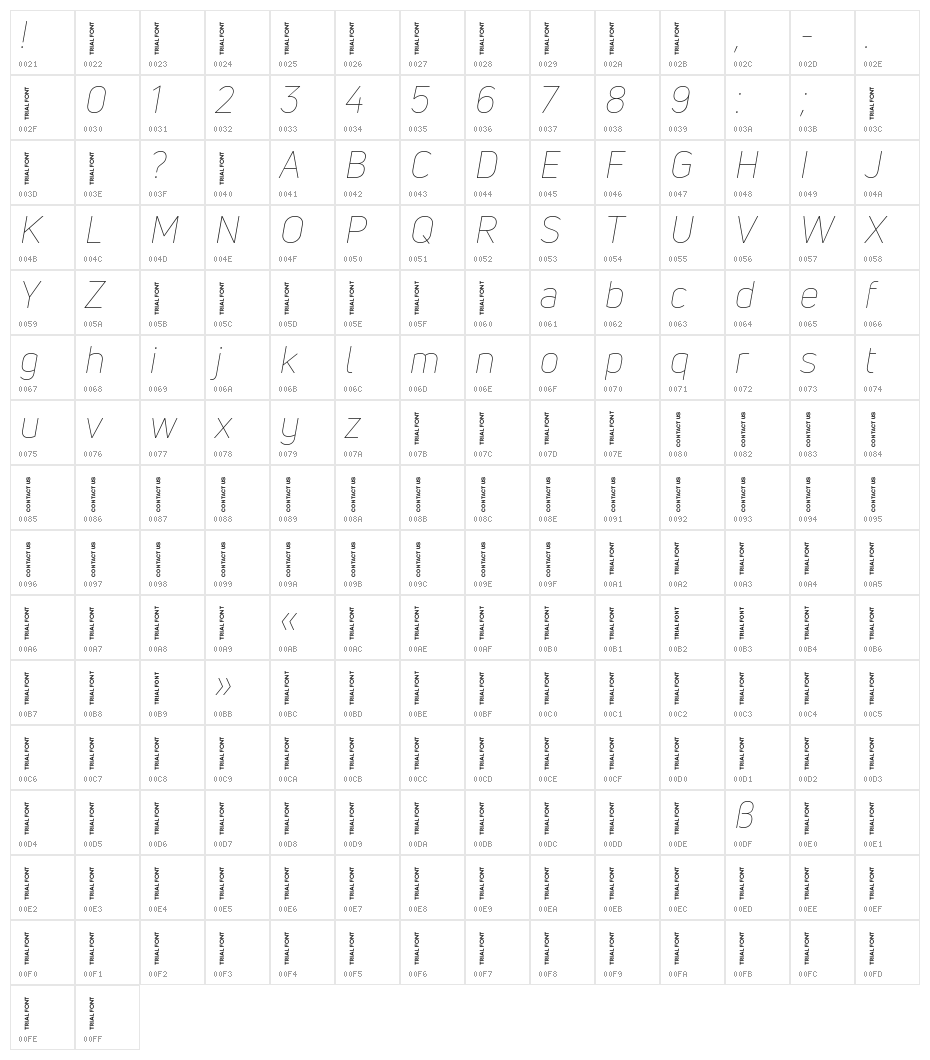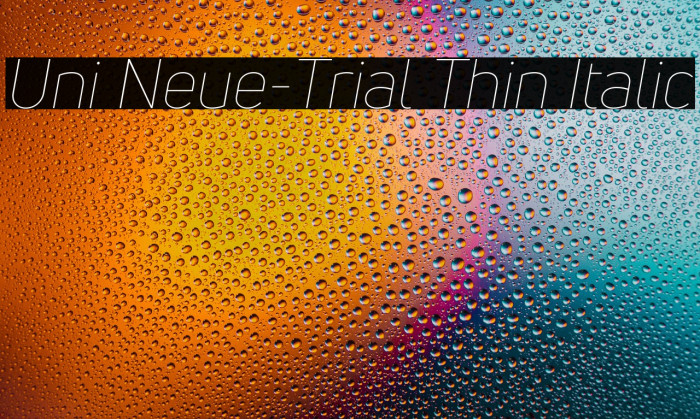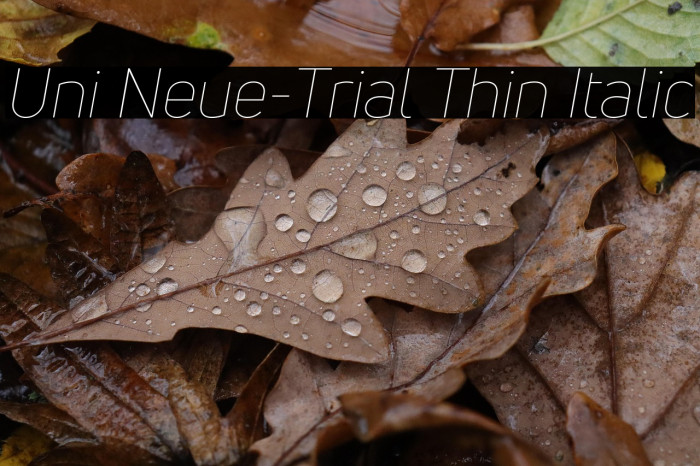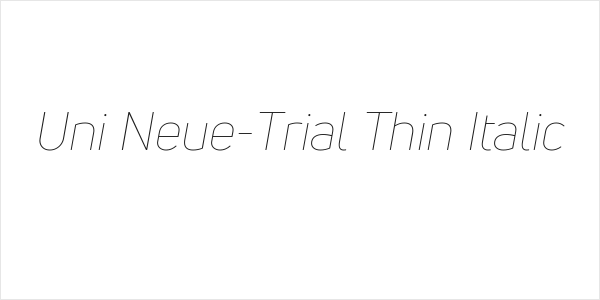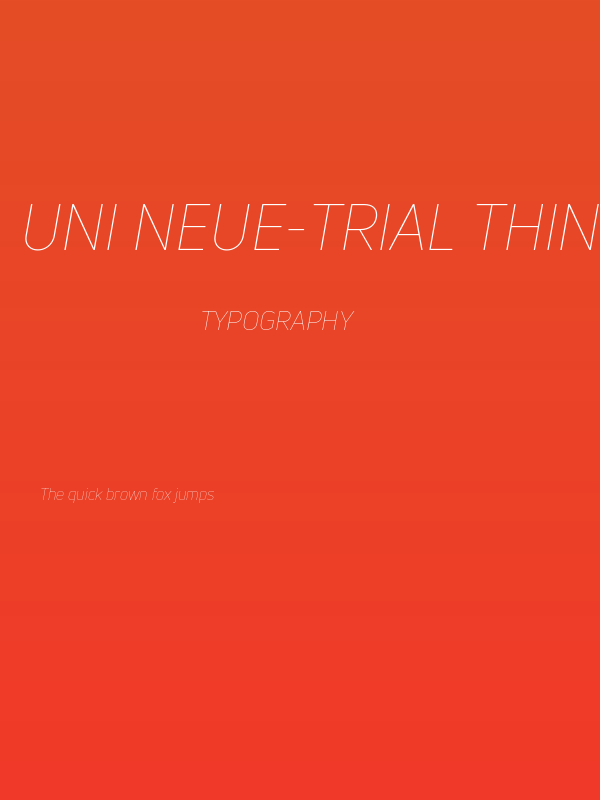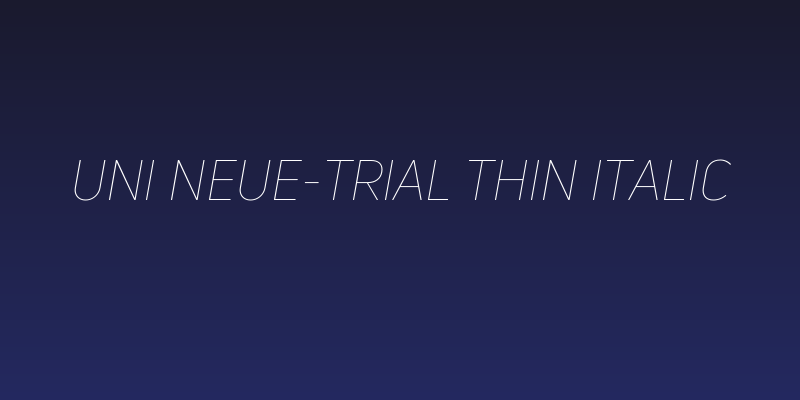
Uni Neue-Trial Thin Italic Font
Uni Neue-Trial Thin Italic Description
This font features a sleek and modern design with a thin, elegant stroke that gives it a refined and sophisticated appearance. The italic style adds a dynamic and fluid feel, making it suitable for contemporary and stylish applications. The characters are well-proportioned, with a slight slant that enhances readability while maintaining a minimalist aesthetic. The clean lines and open forms contribute to its legibility, making it ideal for both digital and print media. The font's thin weight and italic angle create a sense of movement and grace, perfect for projects that require a touch of elegance and modernity.